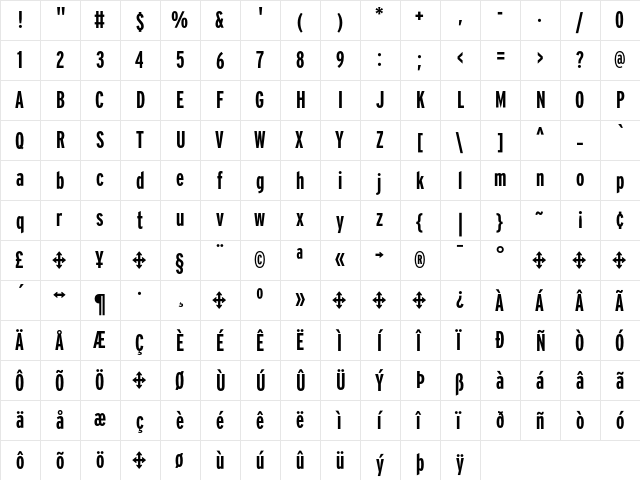
Interstate BoldCompressed
Design Context for Interstate Typeface
Interstate takes a measured approach to typography — its balanced proportions and neutral character make it a reliable workhorse for both digital and print work. The heavy weight commands attention and anchors typographic hierarchies.
Pro Tip: Use Interstate in both headline and body roles to test its range before committing to a single application.